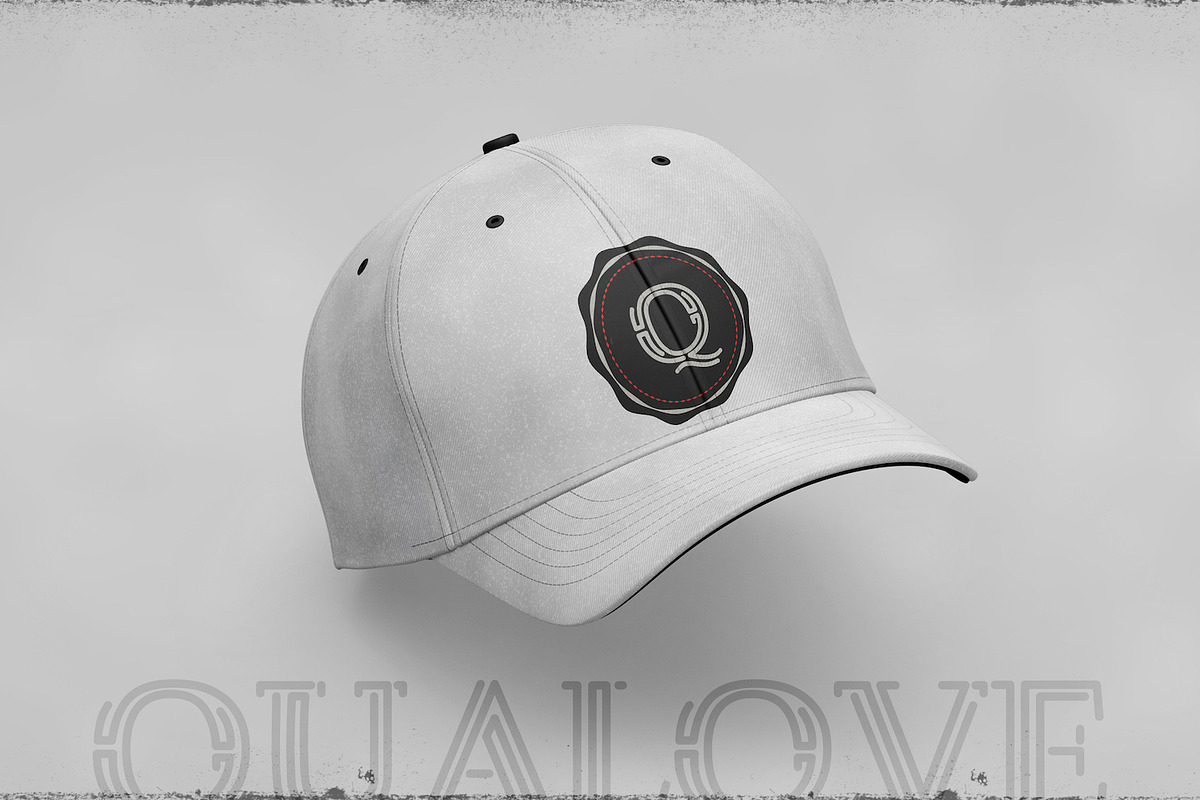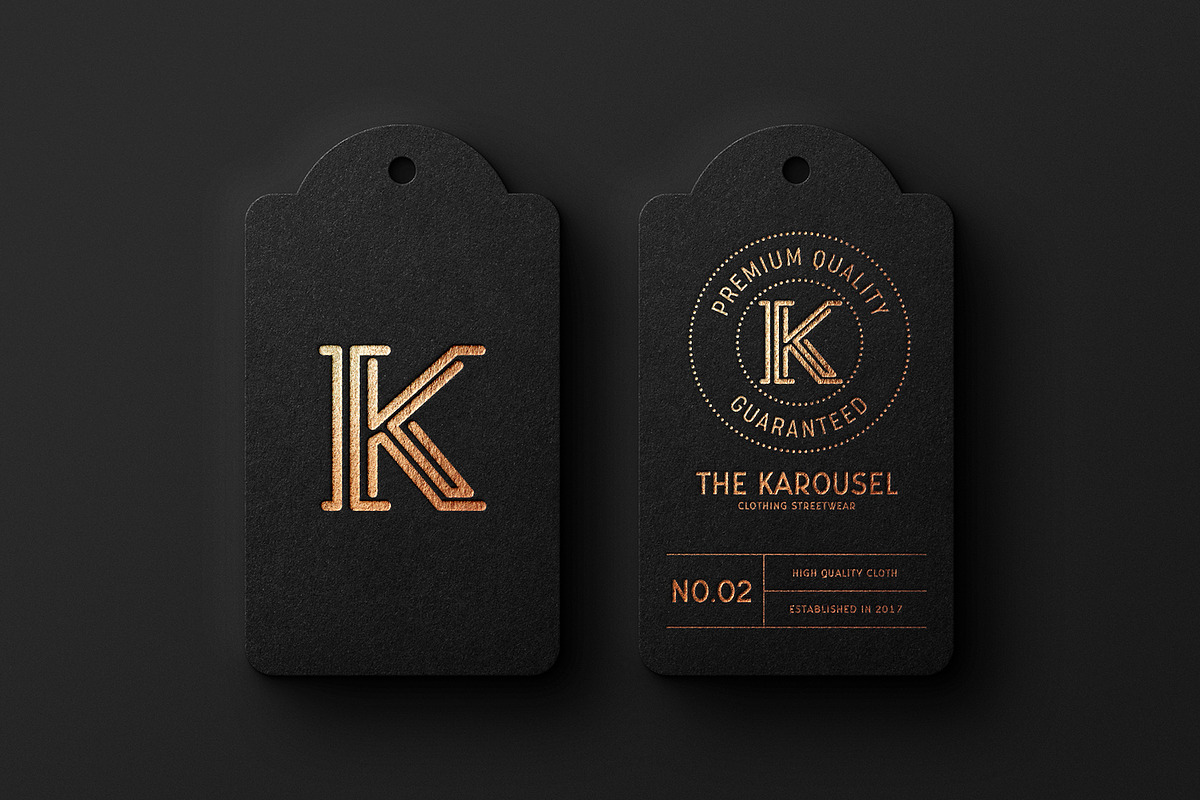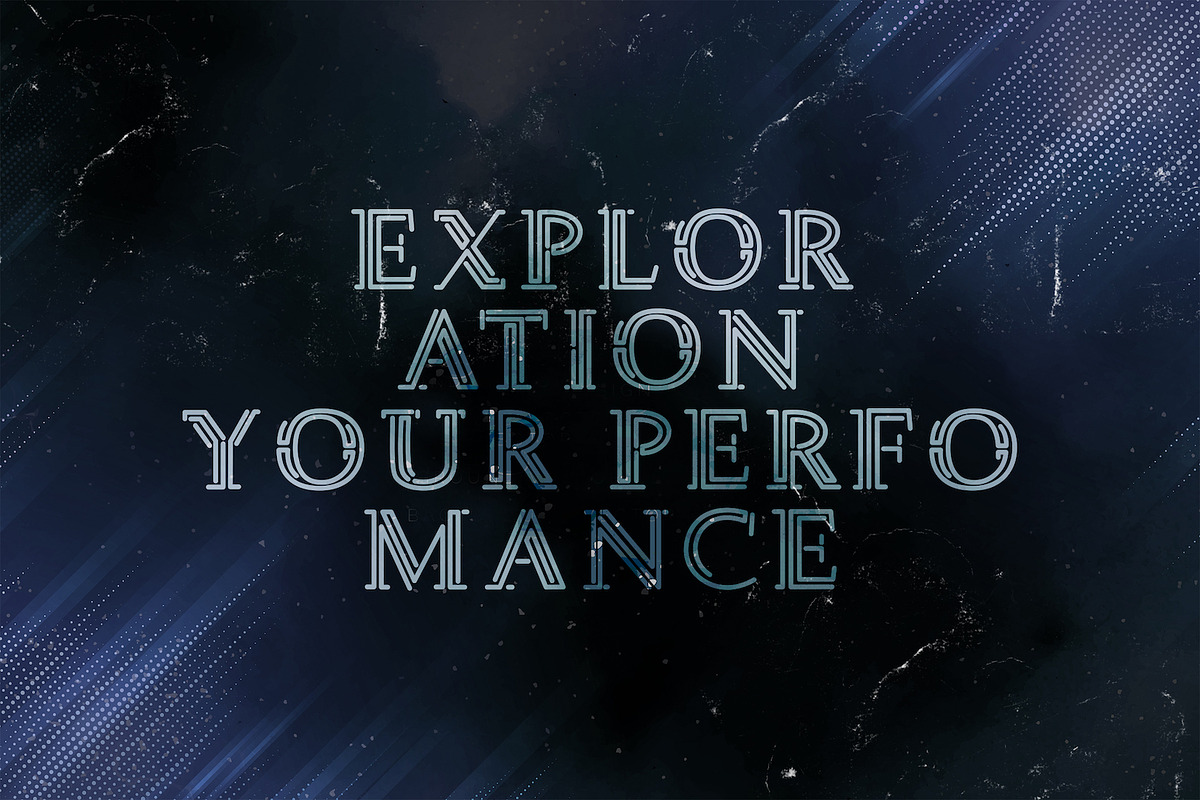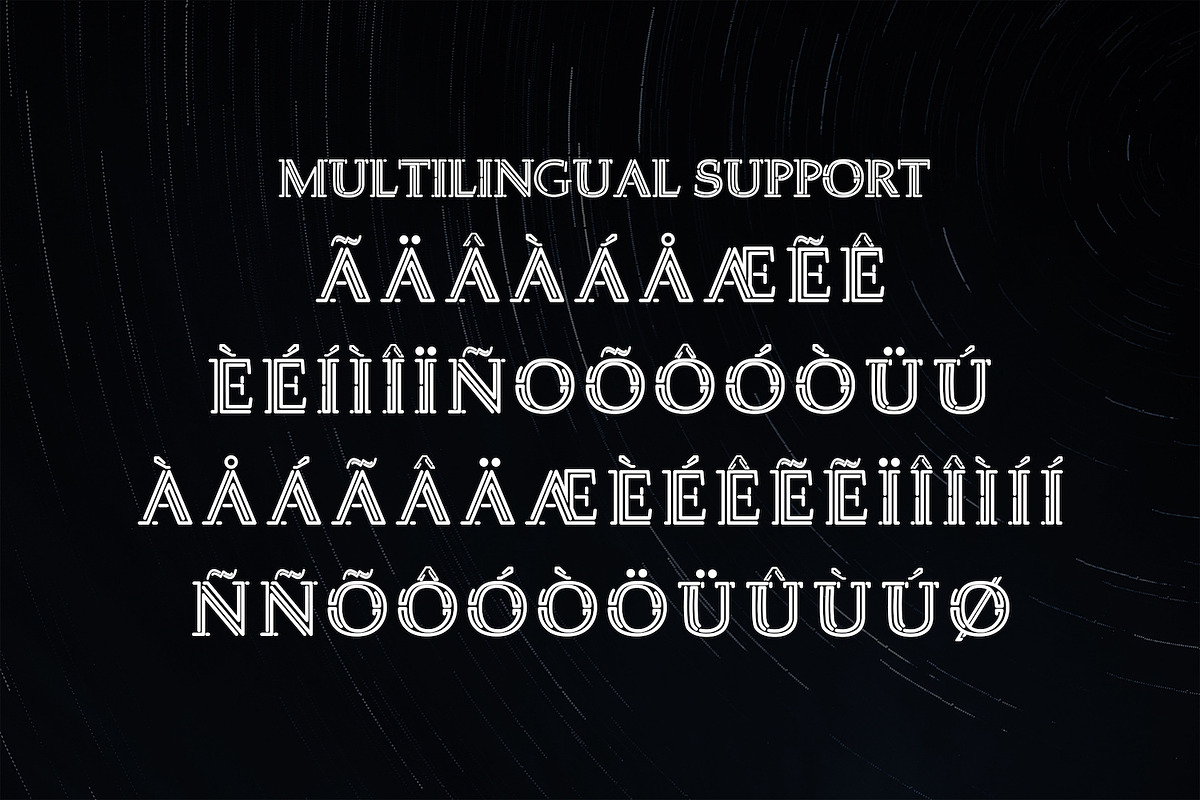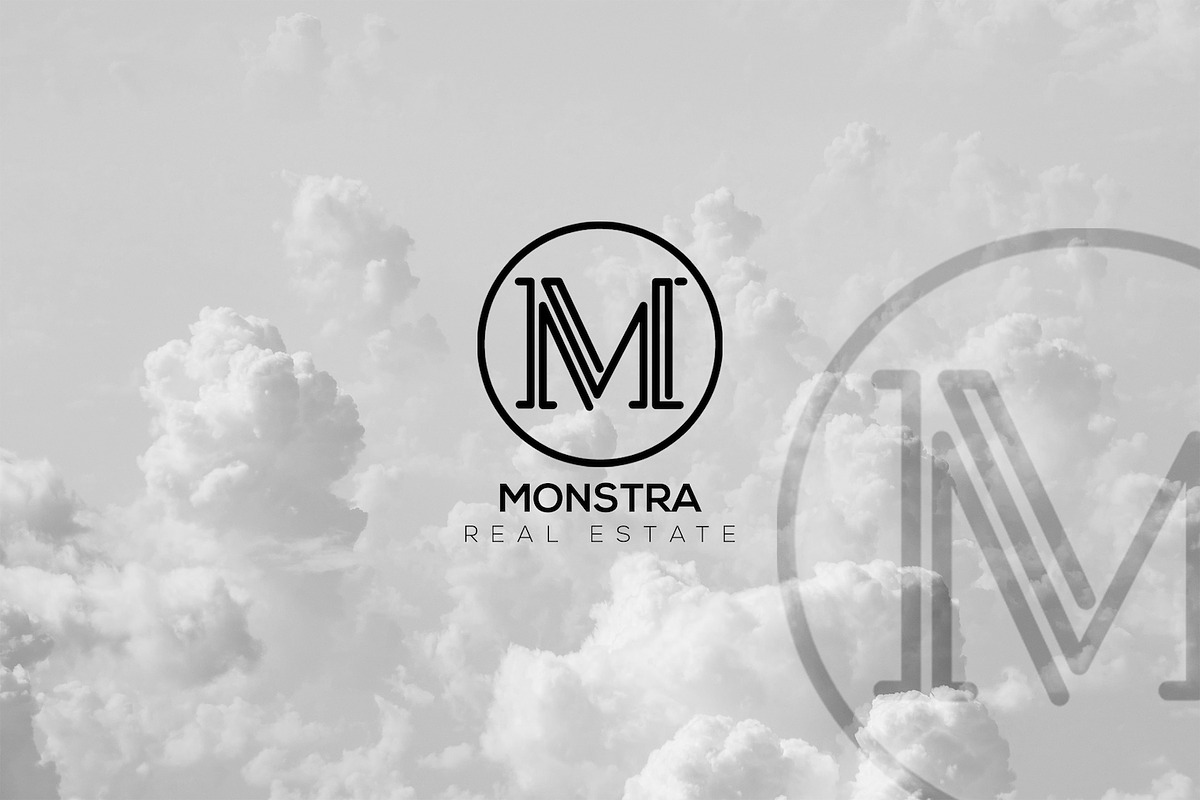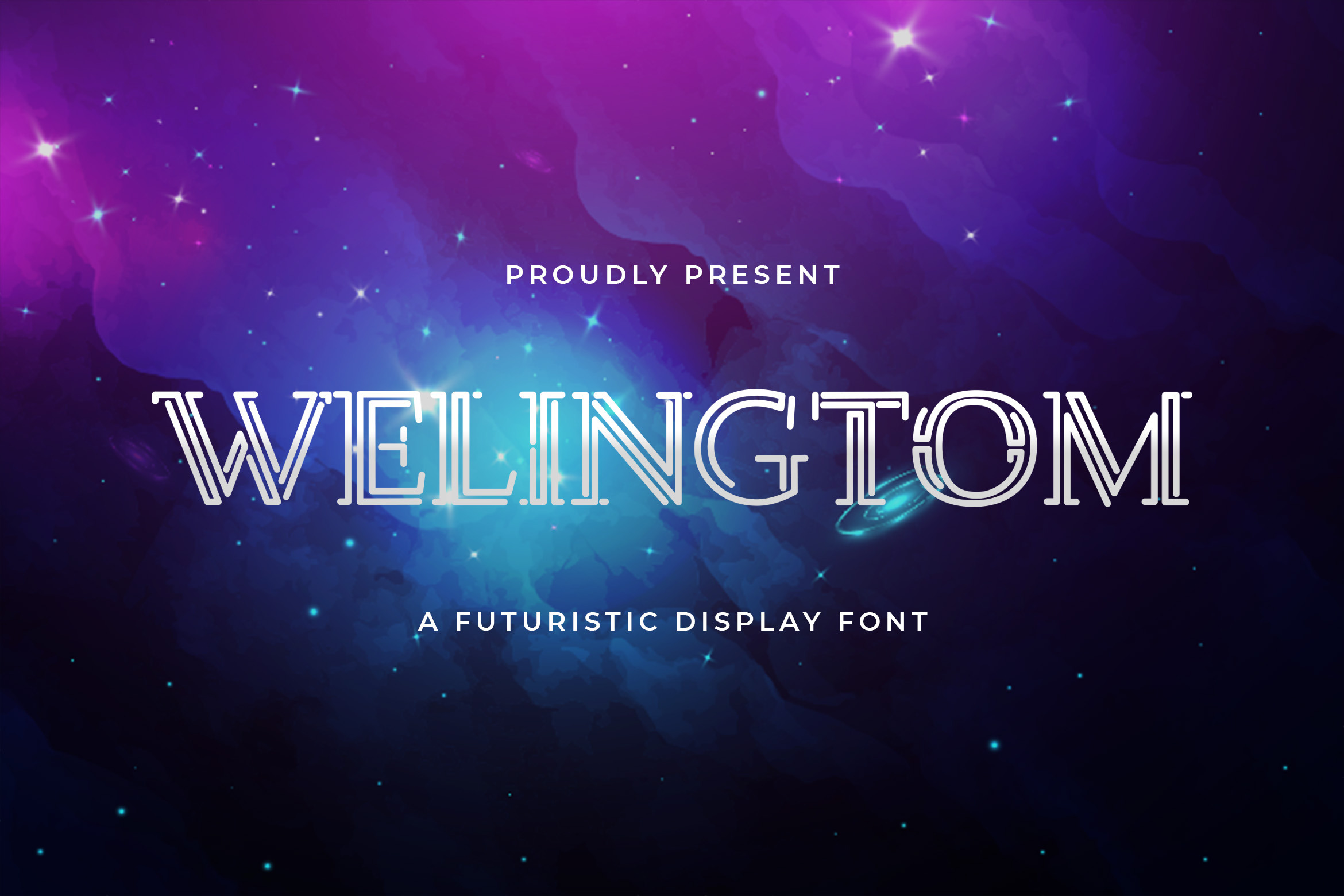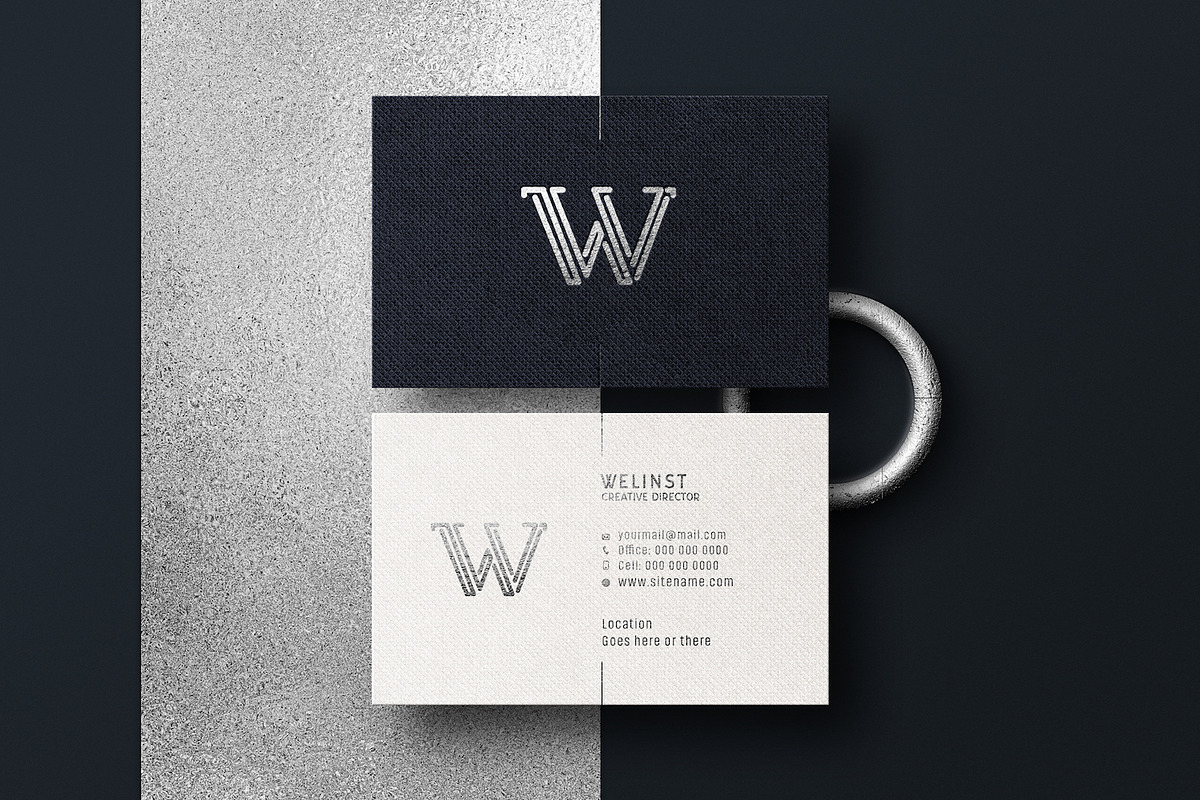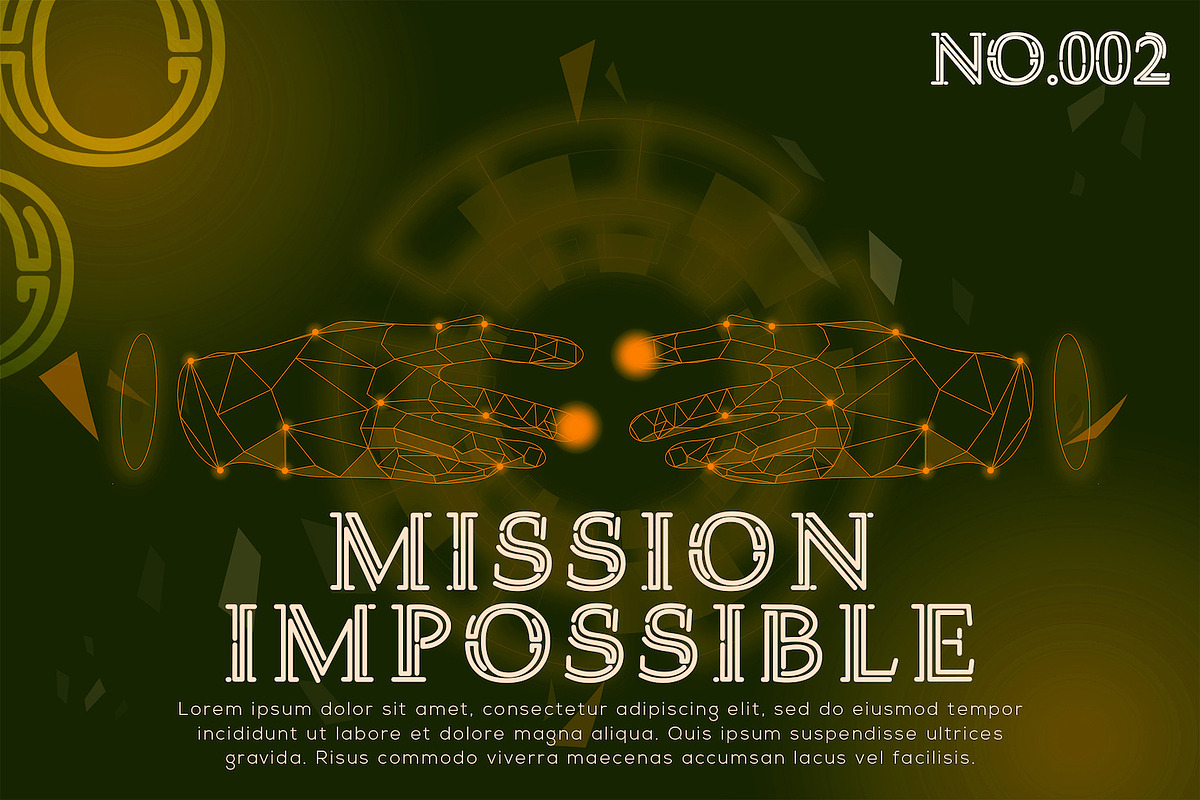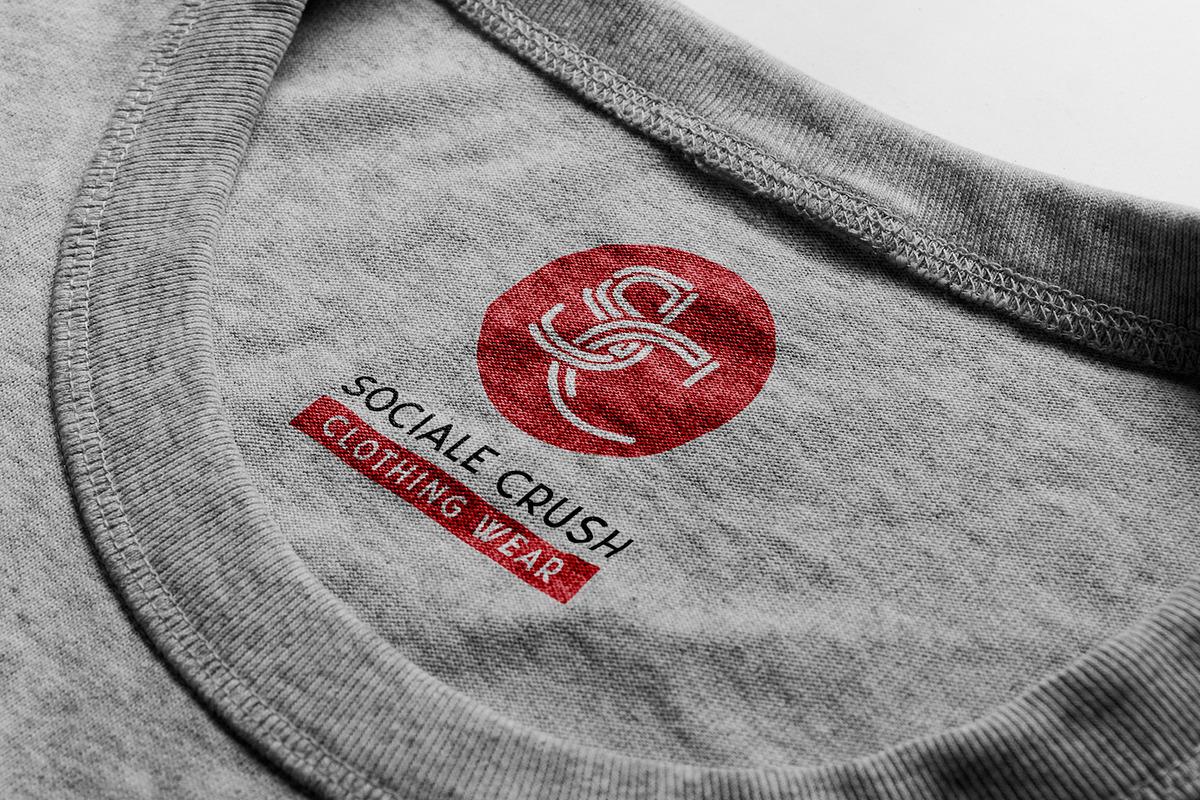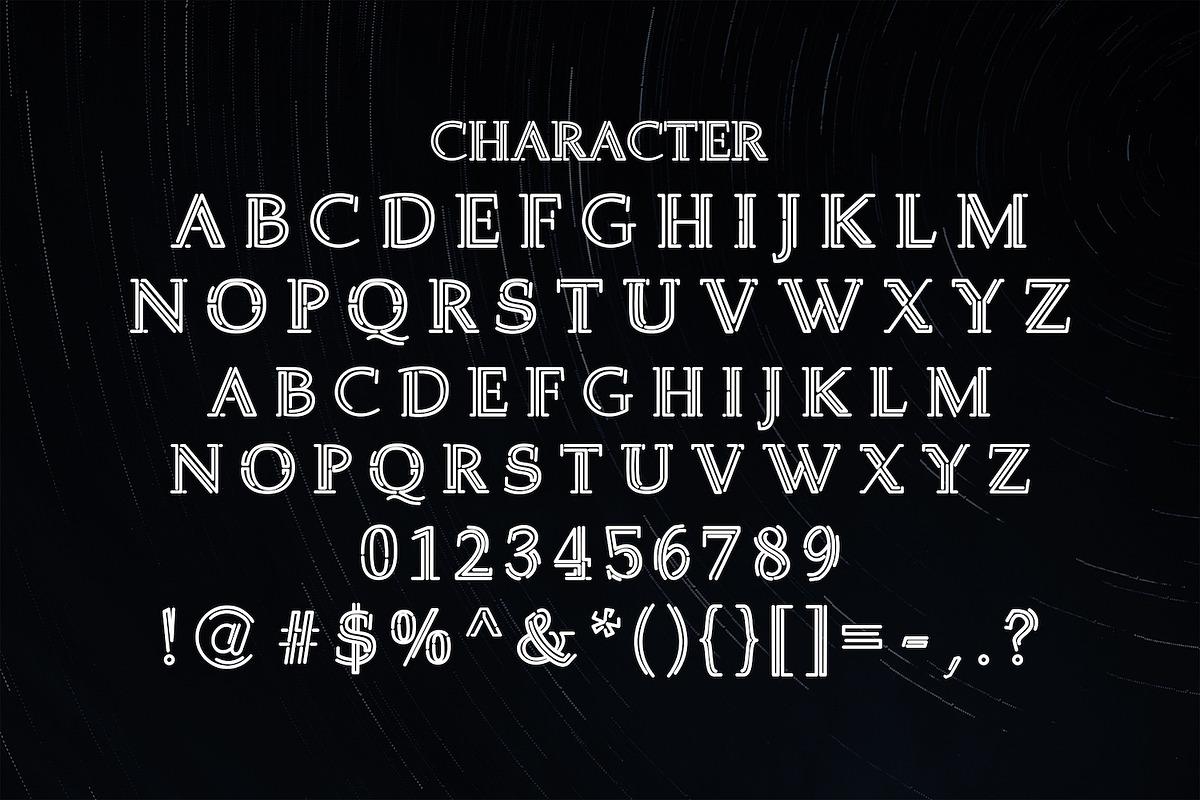
Welingtom - Futuristic Display Font
Introducing Welingtom - Futuristic Display Font
Welingtom is a playfully conceptual font will look truly outstanding in a wide range of contexts. Let your imagination be the limit! Its friendly feel makes this font versatile, fitting a wide range of contexts. Add it to your creative ideas and notice how it makes them stand out!